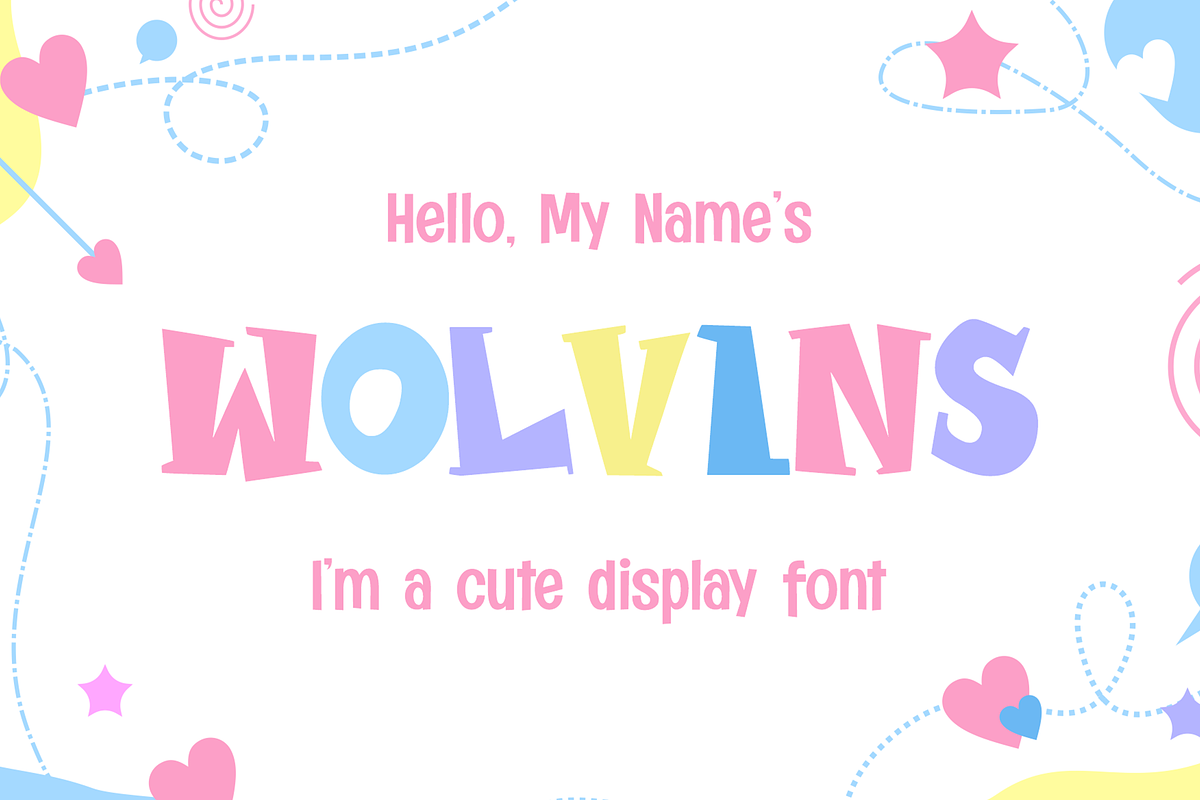
Wolvins Free Download
Wolvins Font Free Download
Wolvins Font Free Download is a bold and edgy display typeface inspired by wild instincts and dark aesthetics. With its sharp angles, rugged lines, and primal energy, Wolvins is perfect for horror themes, metal band logos, gaming graphics, streetwear branding, and movie titles that need to leave a lasting impression.
This typeface howls with attitude—commanding attention while keeping your design grounded in raw emotion and power. Whether you’re creating merchandise, posters, or bold digital artwork, Wolvins adds fierce personality to every project.
Designers love Wolvins for its striking, untamed look and versatility across both print and screen. Want to unleash your next creation? Download Wolvins Font Free Download and bring the beast to your boldest designs.